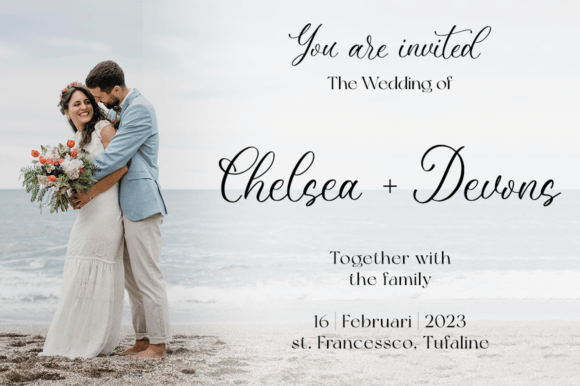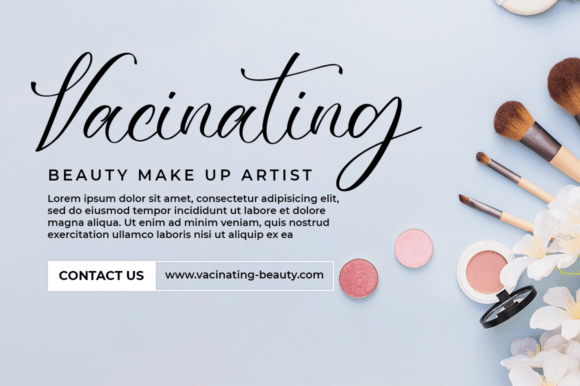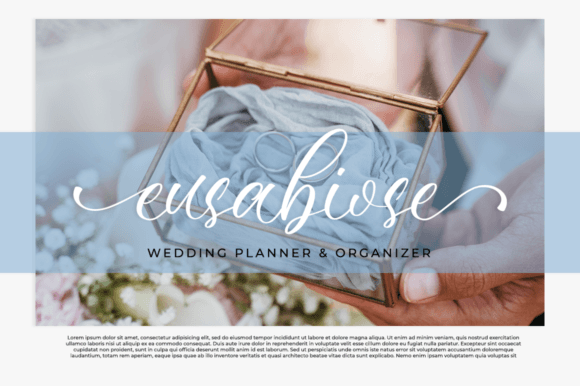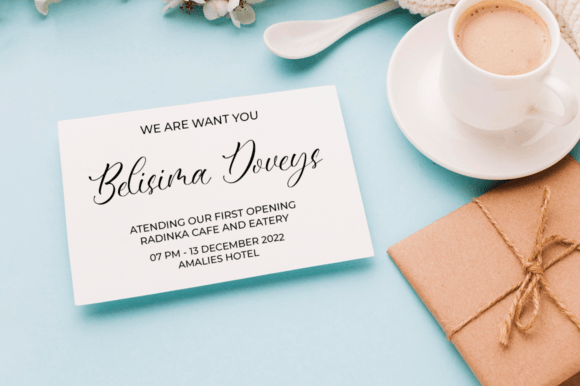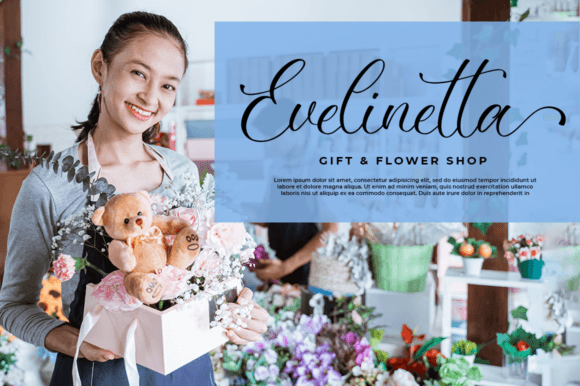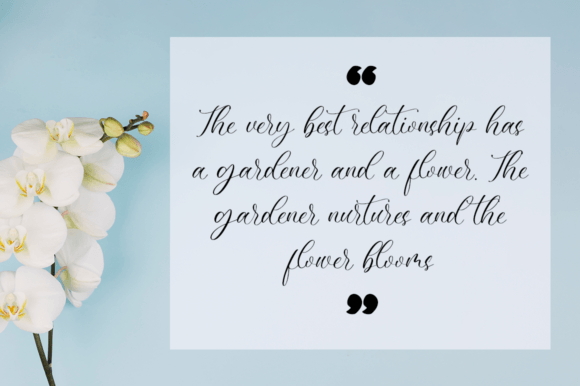
Introducing Canedice Font: Elevate Your Designs with Elegance
Are you a designer or crafter looking for a font that exudes elegance and sophistication? Look no further than Canedice Font. This beautiful, handwritten font is perfect for adding a touch of luxury to any design project. In this article, we’ll explore the features and benefits of Canedice Font, and show you how it can elevate your designs to the next level.
A Font that Feels both Gorgeous and Distinct
Canedice Font is an elegant handwritten font that feels both gorgeous and distinct. Its unique and stylish lettering makes it perfect for designs that require a customized touch. Whether you’re working on a wedding invitation, thank you card, quote, greeting card, logo, or business card, Canedice Font is sure to impress.
Canedice Font is versatile and can be used for a wide range of design projects. Here are some ideas to get you started:
- Wedding invitations: Add a touch of elegance to your wedding invitations with Canedice Font.
- Thank you cards: Show your appreciation with beautifully designed thank you cards featuring Canedice Font.
- Quotes: Make your quotes stand out with the stylish and elegant lettering of Canedice Font.
- Greeting cards: Create stunning greeting cards for any occasion with Canedice Font.
- Logos: Use Canedice Font to create a unique and memorable logo for your business.
- Business cards: Elevate your business cards with the sophisticated and elegant lettering of Canedice Font.
Canedice Font is PUA (Private Use Area) encoded, which means you can access all of the glyphs and swashes with ease. This feature makes it easy to customize your designs and add a personal touch. With PUA encoding, you can:
- Access a wide range of glyphs and swashes
- Easily customize your designs
- Add a personal touch to your projects
Why Choose Canedice Font?
So why choose Canedice Font for your design projects? Here are just a few reasons:
- Elegant and sophisticated lettering
- Versatile and can be used for a wide range of design projects
- Perfect for designers and crafters looking for a high-quality font
Tips for Using Canedice Font
Here are a few tips for using Canedice Font in your design projects:
- Use it for headings and titles to add a touch of elegance
- Pair it with other fonts to create a unique and stylish design
- Use it consistently throughout your design to create a cohesive look
In conclusion, Canedice Font is a beautiful and elegant handwritten font that is perfect for designers and crafters looking to add a touch of luxury to their design projects. With its PUA encoding and wide range of glyphs and swashes, it’s easy to customize and use in a variety of designs. Whether you’re working on a wedding invitation, logo, or business card, Canedice Font is sure to impress.